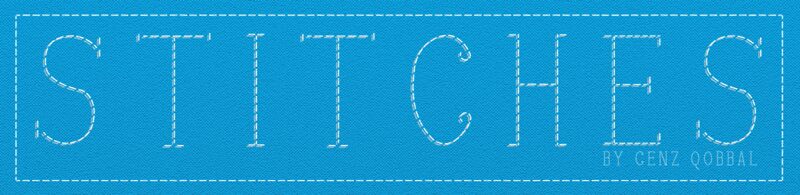
Stitches Shadow by Cenz Qobbal is a free old-school display font with tall, slender capitals, sharply drawn slab serifs, and a fine offset shadow. Its dashed inner line resembles careful machine stitching.
It is especially convincing on fashion packaging, where the sewn detail can become part of a label's material theme. Poster titles and music artwork gain a refined vintage edge from the narrow proportions and formal letter shapes. It also suits sewing event graphics and craft branding aimed at makers who will recognize the thread-like treatment immediately.